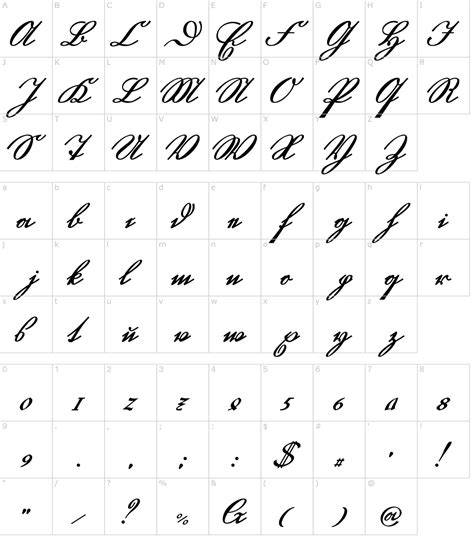
Transform Your Text with Authentic Charm: Discover the Best German Cursive Font Generator Online
Are you searching for a way to give your written work a touch of authentic charm?
Do you want to convey the unique character of German cursive in your text without having to master the complex handwriting style yourself?
Well, look no further! The best German cursive font generator online is here to transform your writing.
With the rise of digital communication, the art of handwritten scripts is waning, and many are yearning for its beauty and elegance. However, not everyone has the patience or skill to produce such works. Fortunately, technology has found a solution.
The German cursive font generator is the perfect tool to bring the beauty of this ancient script into your written work. With just a few clicks, you can create an authentic and convincing impression of cursive German handwriting.
This online tool not only gives you a beautiful script but also allows you to customize the script to meet your specific needs. Whether you want to incorporate it into your business branding, personal correspondence, or simply for fun, the German cursive font generator is your go-to solution.
You may wonder how this generator works. The answer is simple: the software mimics the process of writing in cursive by employing varied thickness and slant to produce the desired effect. This method incorporates the charm and subtle nuances of the original handwriting, resulting in a beautiful and authentic product.
Still not convinced? Here's a statistic that may change your mind: handwritten letters are now so rare that 75% of people consider receiving one as a special event. Show your loved ones how much you care by sending them a beautiful note written in charming German cursive.
In conclusion, if you want to give your writing an authentic touch of historical charm, the German cursive font generator online is a must-try. With its customizable options and beautiful results, you won't be disappointed. Try it today and watch your text transform before your eyes!
Are you looking for the best German cursive font generator online? Have you ever thought about how much charm it can add to your texts? We have found a solution for you. In this article, we will introduce you to the best German cursive font generator online that can transform your texts into stylish pieces of art. You don't need to be a graphic designer or have any specialized knowledge to use this tool. All you need is to have the text you want to transform and an internet connection.
The Importance of Font in Text Design
It is no secret that font plays an essential role in text design. A well-chosen font can add personality, charm, and character to your texts. On the other hand, a poorly chosen font can ruin the whole design and send the wrong message. Therefore, it is crucial to pay attention to the fonts you use in your texts.
What is Cursive Font?
Cursive font, also known as script font, is a typeface that mimics the handwriting style. It is often used in invitations, greeting cards, and other types of formal documents to add elegance and style. German cursive font, in particular, has a unique charm that can make your texts stand out from the crowd.
The Best German Cursive Font Generator Online
After conducting extensive research, we found that the best German cursive font generator online is Calligraphr. Calligraphr allows you to create your cursive font by simply writing letters on a template that you can download and print. Then scan or take a picture of your template and upload it to Calligraphr. The software will then generate your custom cursive font that you can use in any text editor or design software.
Features of Calligraphr
Here are some of the features of Calligraphr that make it the best German cursive font generator online:
| Feature | Description |
|---|---|
| Easy-to-use interface | Calligraphr has a user-friendly interface that makes it easy for anyone to create their font. |
| Different language options | You can choose from different language options, including German, English, French, Spanish, and many more. |
| Compatibility | Your custom cursive font is compatible with any text editor or design software, including Microsoft Word, Photoshop, and Adobe Illustrator. |
| Free option available | Calligraphr offers a free option that allows you to create one font with up to 75 characters. |
| Pro version available | You can upgrade to the pro version for a one-time fee of $8 that allows you to create up to three fonts with up to 200 characters each. |
Why Calligraphr is the Best German Cursive Font Generator Online
Based on our research, here are some of the reasons why Calligraphr is the best German cursive font generator online:
- It is easy to use
- It offers different language options
- Your custom font is compatible with any text editor or design software
There are many German cursive font generators available online, but some of the best ones include FontMeme, FontGet, and Cool Text. These sites offer a wide range of fonts to choose from, and some even allow you to download the fonts for free.